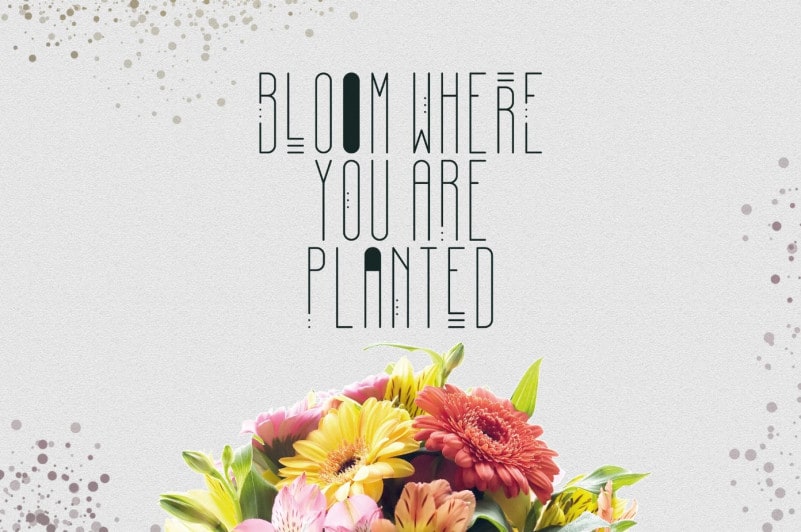
April Display Font
April Display Font is stretched display font with 66 alternatives, multilingual support and photoshop styles. It’s a very versatile font that works great in large and small sizes.
April Display Font is perfect for branding projects, home-ware designs, product packaging, wedding invitations, magazine headers – or simply as a stylish text overlay to any background image.
• 66 Alternative Glyphs